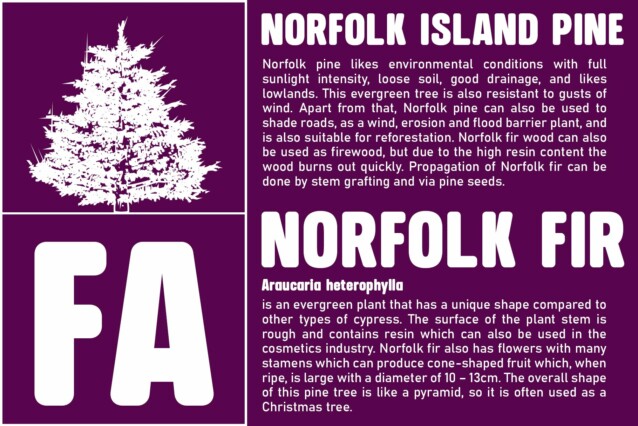
Arnel Rounded Font
Arnel Rounded Font is a bold sans serif font that commands attention with its rounded edges and strong presence. Its robust design ensures clarity and legibility in any context.
Smooth and Rounded With its rounded corners and smooth curves, This font exudes a sense of friendliness and approachability. The rounded details add a touch of warmth to the overall appearance.